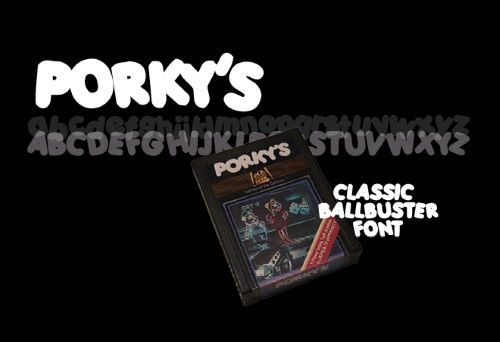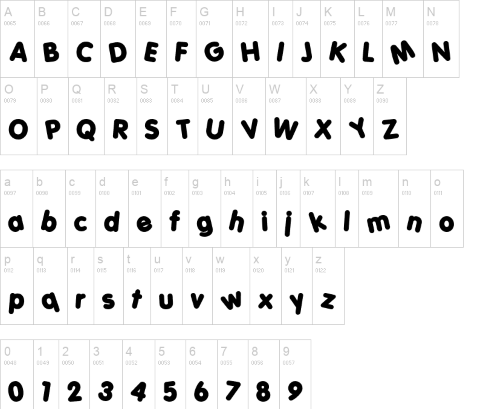
Porky’s Font
Porky’s Font is a bold, playful cartoon-style typeface inspired by classic animation and comic lettering. With its thick strokes, rounded shapes, and lively personality, it’s perfect for kids’ designs, logos, posters, stickers, and fun branding. Porky’s brings humor, energy, and a nostalgic cartoon charm to any creative project.